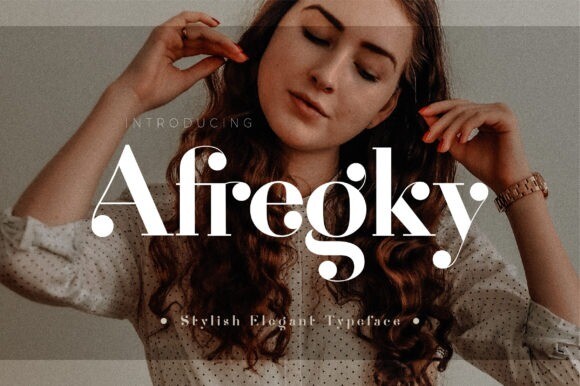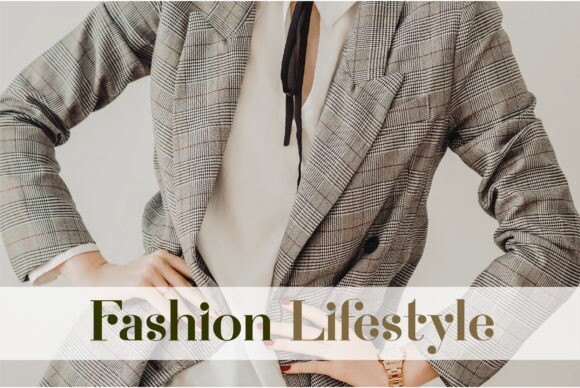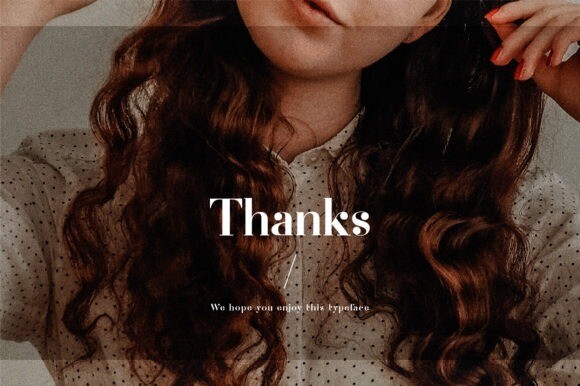
Afregky Font
Afregky is a stylish, elegant and incredibly distinct serif font. This versatile script font has a wide spectrum of applications ranging from greeting cards to headlines and is guaranteed to add a romantic feel to your next project.